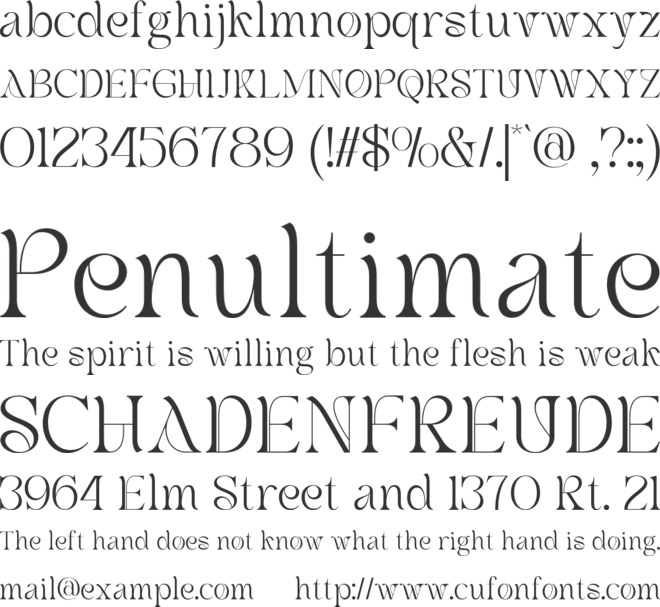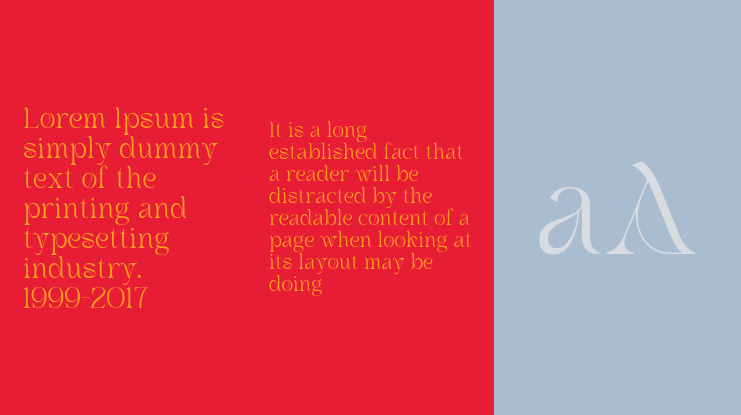
Chenolyta Font Family
Fall in love with Chenolyta, a romantic serif typeface that captures the essence of love and elegance. With its graceful curves and refined details, Chenolyta brings a luxurious charm to your design — perfect for Valentine’s projects, perfume branding, wedding invitations, or editorial layouts.
Featuring 450+ glyphs, multilingual support, and two styles (Regular & Oblique), this font lets you express beauty and sophistication effortlessly. Create designs that feel timeless, poetic, and passionately romantic with Chenolyta.